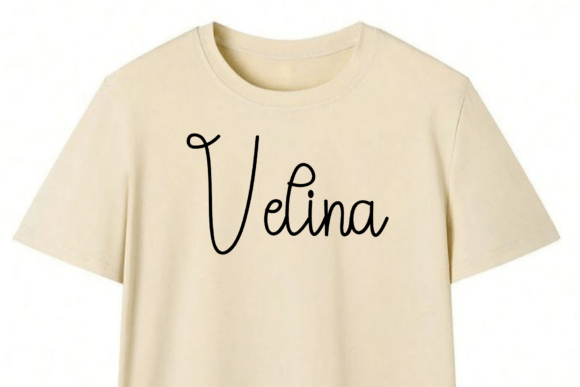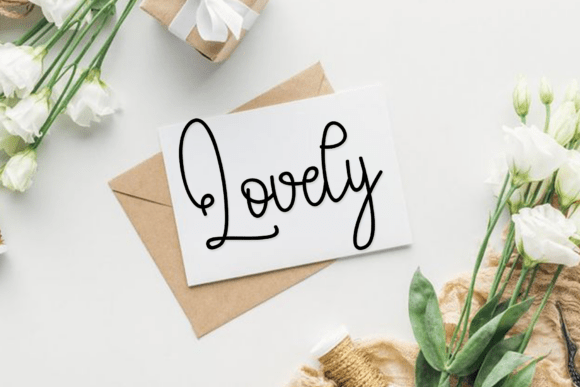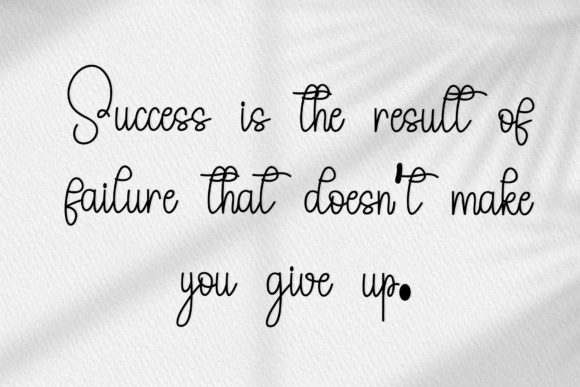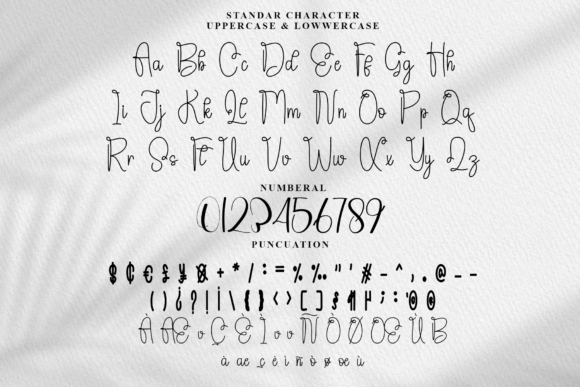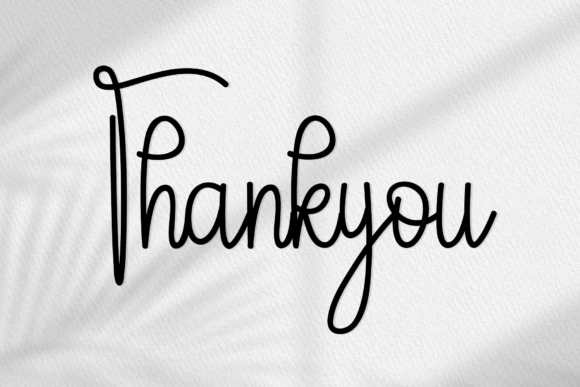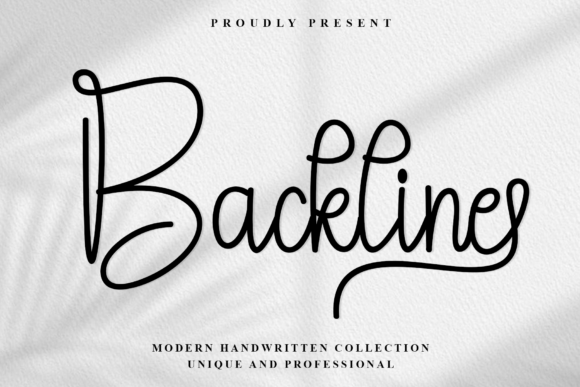
Introducing Backline Font: Elevate Your Design with Elegance and Sophistication
In the world of typography, a well-crafted font can make all the difference in elevating your design to new heights. For designers and crafters seeking a touch of luxury and sophistication, Backline Font is an exquisite choice. This beautifully flowing and elegant modern handwritten script font is designed to add a touch of refinement to any project.
The Characteristics of Backline Font
Backline Font boasts smooth, generous curves and graceful, elongated strokes that give it a distinctive, signature look. Its unique blend of modern elegance and classic sophistication makes it perfect for a wide range of applications, from personal branding to luxury wedding stationery. The font’s flowing lines and natural curves evoke a sense of authenticity, making it an ideal choice for designers seeking to add a touch of personality to their work.
Backline Font is a versatile typeface that can be used in a variety of creative projects. Some of the ideal applications for this font include:
- Personal Branding: Establish a luxurious and sophisticated image with Backline Font, perfect for logos, business cards, and letterheads.
- Photography Watermarks: Add a touch of elegance to your photographs with a subtle, yet distinctive watermark.
- Luxury Wedding Stationery: Create beautiful, high-end wedding invitations, menus, and programs that exude sophistication and refinement.
- Editorial Design: Elevate your editorial designs, such as magazines, blogs, and newspapers, with a font that commands attention and respect.
Why Choose Backline Font?
With Backline Font, you can expect a high level of quality and versatility. Here are just a few reasons why designers and crafters love this font:
- Unique and Professional: Backline Font is a one-of-a-kind typeface that will set your design apart from the rest.
- Elegant and Sophisticated: The font’s smooth curves and elongated strokes give it a luxurious feel that’s perfect for high-end designs.
- Easy to Read: Despite its elegant appearance, Backline Font remains highly legible, making it perfect for body text and headlines.
- Highly Versatile: Use Backline Font in a variety of design applications, from digital projects to print materials.
Tips for Using Backline Font
To get the most out of Backline Font, here are a few tips to keep in mind:
- Pair with a Sans-Serif Font: Combine Backline Font with a clean sans-serif font for a striking contrast that adds visual interest.
- Experiment with Colors: Try pairing Backline Font with a range of colors, from rich jewel tones to soft pastels, to find the perfect combination for your design.
- Play with Ligatures: Take advantage of Backline Font’s beautiful ligatures to add an extra touch of elegance to your design.
Backline Font is a stunning, modern handwritten script font that’s perfect for designers and crafters seeking to add a touch of luxury and sophistication to their work. With its smooth curves, elegant strokes, and highly legible design, this font is sure to elevate your projects to new heights. Whether you’re working on personal branding, luxury wedding stationery, or editorial design, Backline Font is an excellent choice.